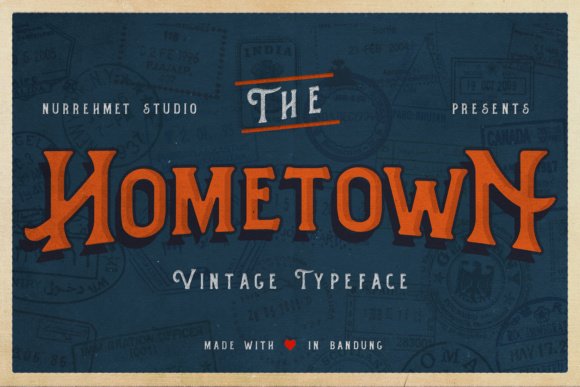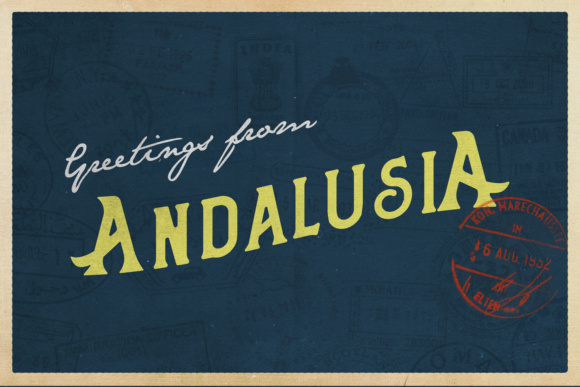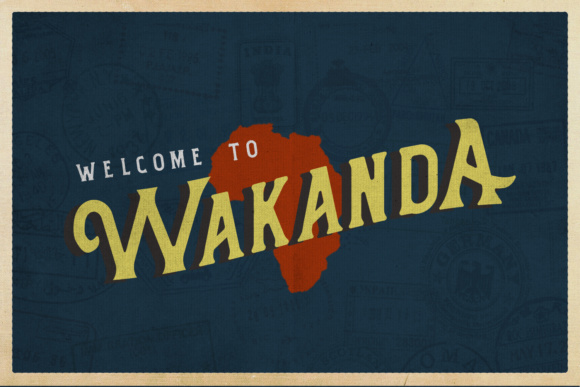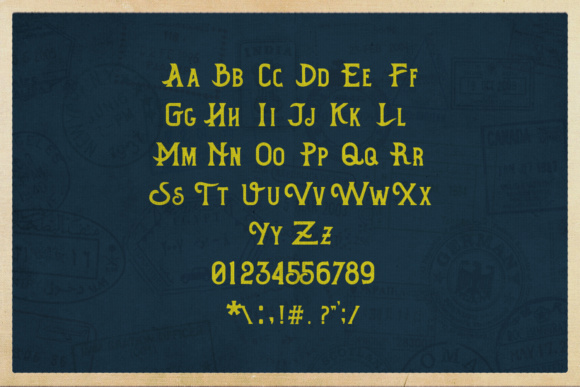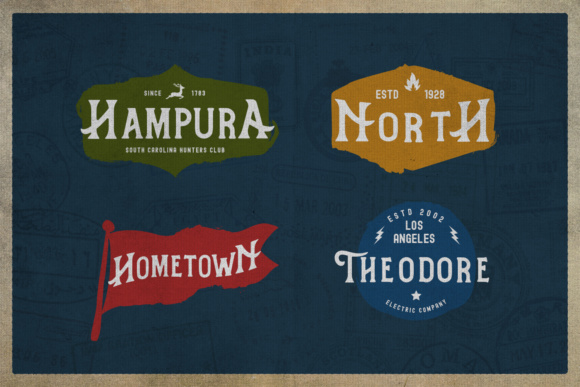
The Nostalgic Charm of Hometown Font
Have you ever stumbled upon an old postcard in your attic, and suddenly, a flood of memories comes rushing back? The faded colors, the vintage design, and the handwritten words all blend together to create a sense of nostalgia that’s hard to shake off. For designers, this feeling is not just a sentimental trip down memory lane, but a valuable source of inspiration.
That’s where Hometown Font comes in – a classic vintage font that’s inspired by the very same postcard designs. With its smooth curves and timeless appeal, Hometown Font is the perfect companion for creating a nostalgic and homely feeling in your creative projects. Whether you’re designing a logo, a brochure, or a website, Hometown Font adds a touch of warmth and character that’s hard to find in modern fonts.
Hometown Font Key Features
- Font Family: Hometown Font comes in two font families, Regular and Bold.
- Unique Characteristics: Features a distressed, vintage aesthetic with subtle texture and wear, giving it a unique and nostalgic feel.
- Character Count: Includes a comprehensive set of characters, including Latin, Cyrillic, and Greek alphabets, as well as punctuation and symbols.
Hometown Font Review
Overall, I was excited to dive into the Hometown Font, and while it has some great qualities, I did encounter a few areas that left me feeling underwhelmed. ✨ First, I loved the friendly, approachable vibe that this font exudes. It’s perfect for creating a sense of warmth and community, making it ideal for projects that require a down-to-earth feel.
- ✨ The font’s humanist touches are a nice touch, giving it a more personal feel.
- ✨ The character set is well-rounded, with a good selection of weights and styles to choose from.
However, I did encounter some limitations that held me back from fully embracing this font. ⚠️ The readability of the font at smaller sizes can be a bit of an issue, and I found myself adjusting the font size more often than I would like.
- ⚠️ The font’s x-height can be a bit inconsistent, leading to some awkward letter spacing.
- ⚠️ The font’s design doesn’t quite hold up to high levels of zoom or resizing.
Overall, while the Hometown Font has its strengths, its limitations prevent it from being a top choice for me. That being said, it still has a lot to offer and could be a great fit for projects that prioritize a warm, friendly feel.
Getting the Most Out of Hometown Font
To get the most out of Hometown Font, use it for:
– Creating warm and inviting headings and titles.
– Adding a rustic touch to your designs.
– Creating a nostalgic feel for your brand or project.
Common use cases for Hometown Font include:
– Branding and logo design.
– Advertising and marketing materials.
– Wedding and event invitations.
– Blog and website design.
Alternatives to Hometown Font
Athelas
Athelas is a serif font designed by Jason Ramirez. It’s suitable for body text, titles, and headlines. Use it for formal documents, books, and publications where you want to convey a sense of tradition and elegance. Compared to Hometown Font, Athelas has a more refined and sophisticated feel, making it a better choice for formal settings.
Playfair Display is an elegant, high-end serif font designed by Claus Eggers Sørensen. It’s ideal for luxurious brands, high-end publications, and formal invitations. Compared to Hometown Font, Playfair Display is more ornate and luxurious, making it a better choice for premium products and services.
Merriweather is a classic serif font designed by Eben Sorkin. It’s suitable for body text, titles, and headlines in a variety of settings, including books, magazines, and websites. Compared to Hometown Font, Merriweather has a more traditional feel and is easier to read, making it a better choice for long-form content.
Montserrat is a sans-serif font designed by Julieta Ulanovsky. It’s ideal for modern brands, websites, and apps where you want to convey a sense of simplicity and sophistication. Compared to Hometown Font, Montserrat is more modern and sleek, making it a better choice for contemporary settings.
Project 2: Personalized T-Shirt Design
Show off your hometown pride with a customized t-shirt design featuring the Hometown Font. This font’s playful and friendly vibe makes it perfect for a fun and casual design.